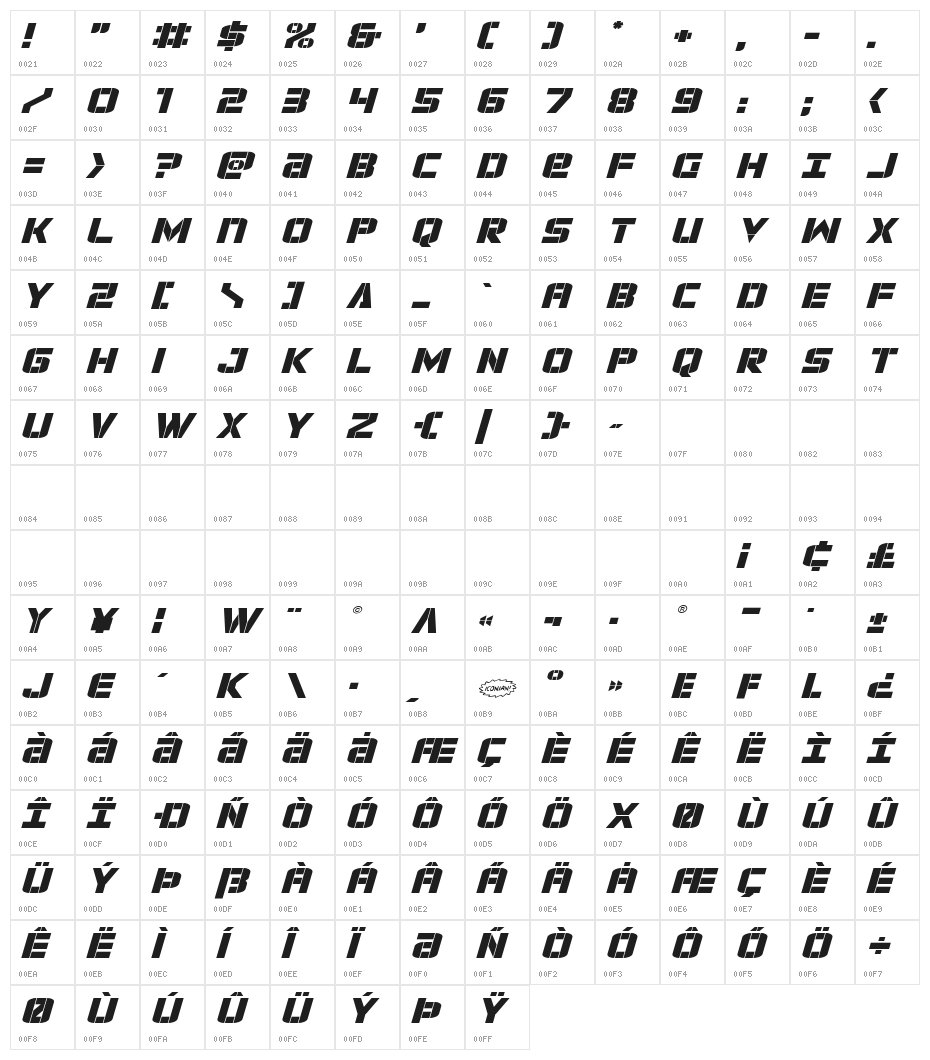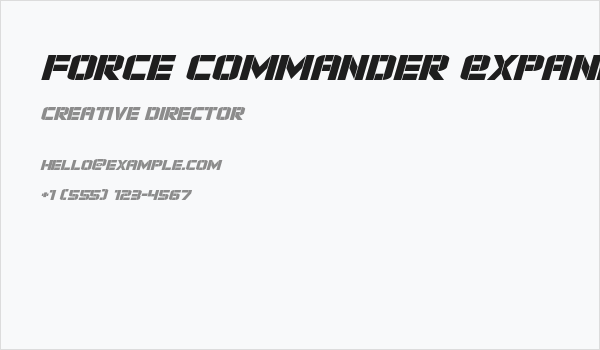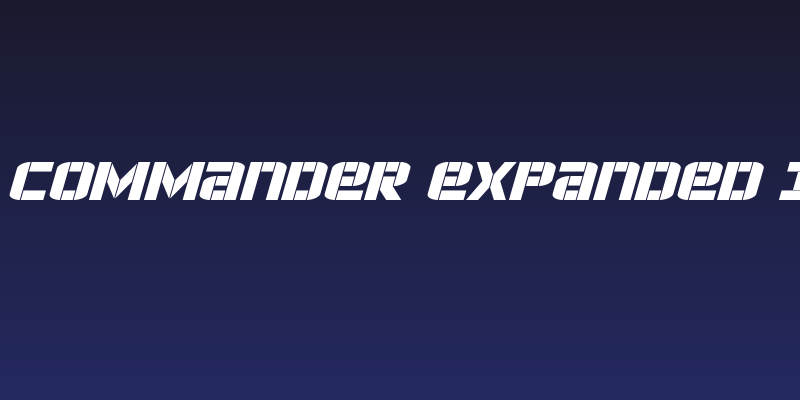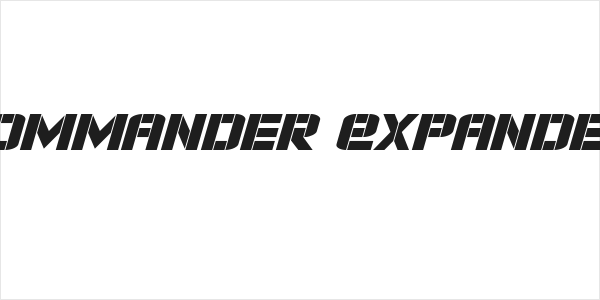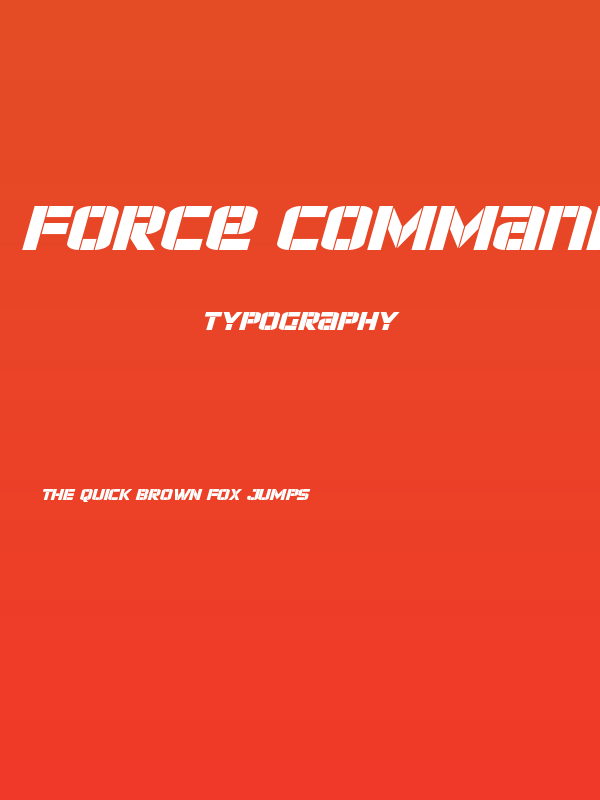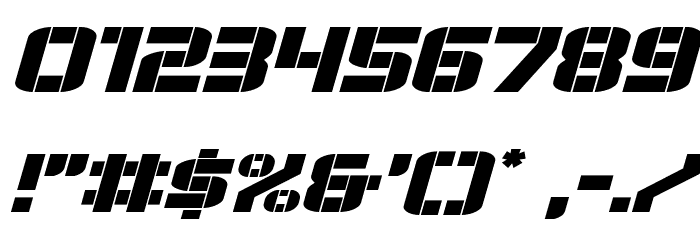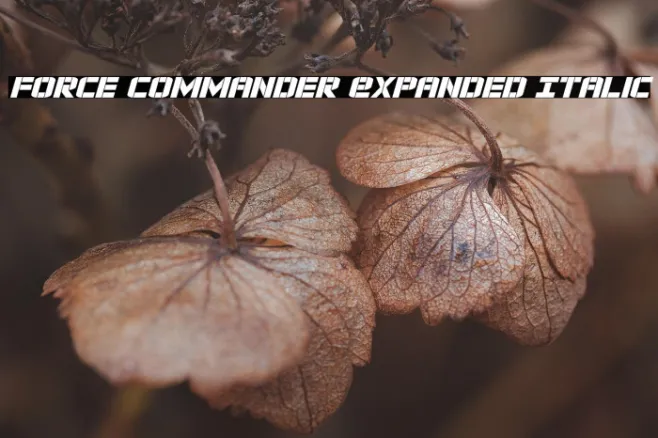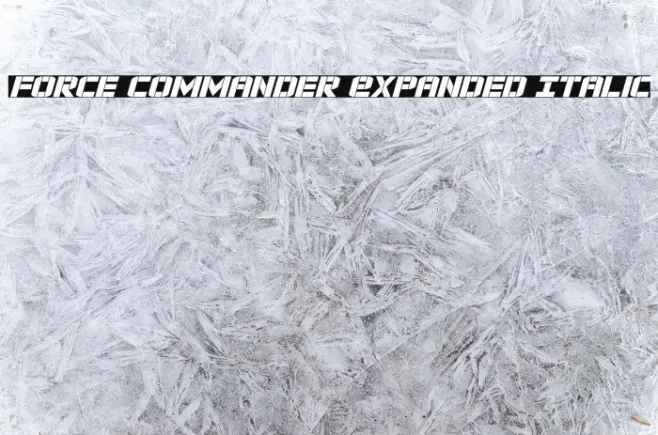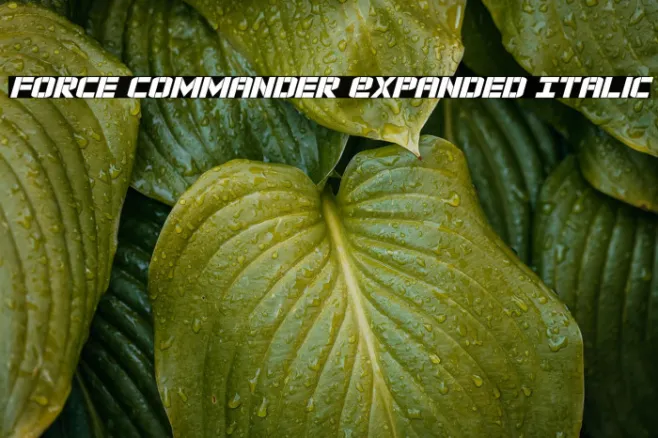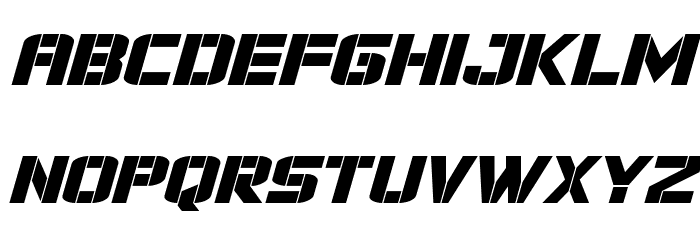
Force Commander Expanded Italic Font
Force Commander Expanded Italic Description
This font features a bold, dynamic design with a futuristic and industrial feel. The characters are constructed with sharp, angular lines and a distinct slant, giving them a sense of motion and energy. The expanded width of the letters enhances their presence, making them ideal for impactful headlines or branding. The font includes both uppercase and lowercase letters, numerals, and a variety of special characters, all maintaining a consistent style. Its geometric structure and uniform stroke width contribute to a modern and cohesive appearance.
| Proposed Projects | Ideal for use in technology branding, sports team logos, video game titles, and sci-fi themed posters. |